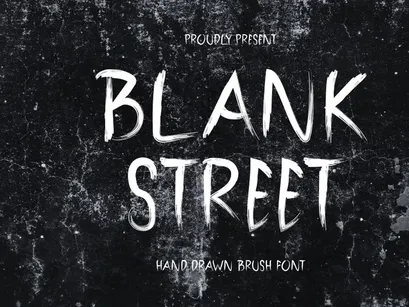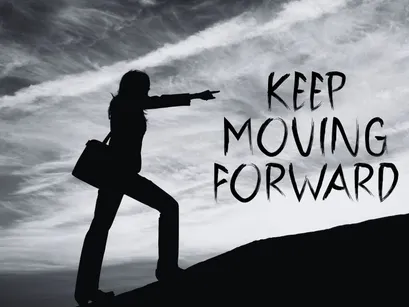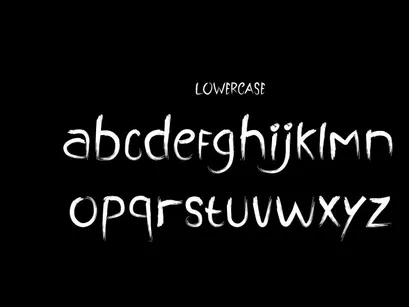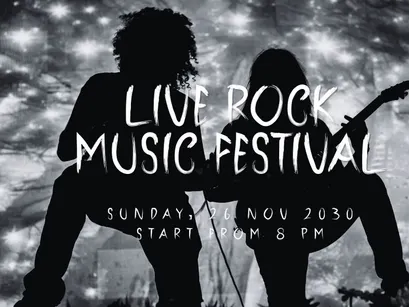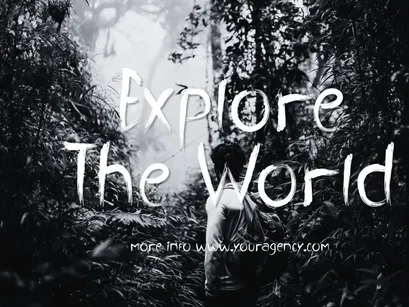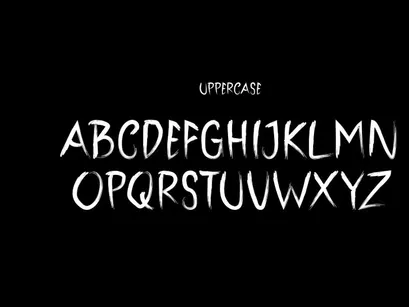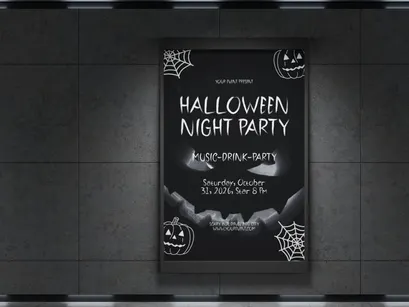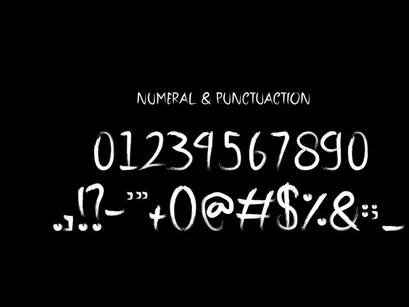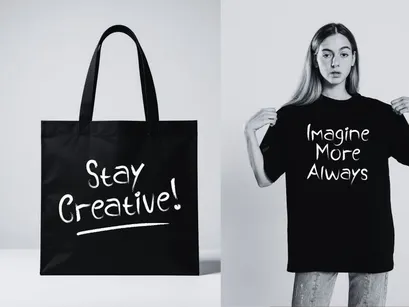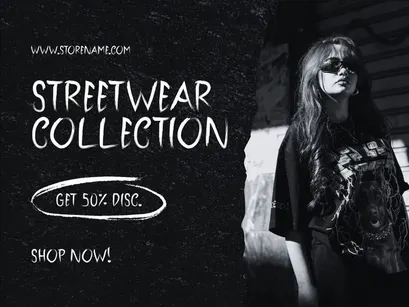
BLANK STREET - HAND DRAWN BRUSH FONT
A bold hand-painted brush font with a natural and expressive style. Perfect for logos, branding, posters, apparel, packaging, social media, merchandise, and creative projects that need an authentic handcrafted look.
Perfect For
• Logos & Branding
• Streetwear & Apparel Design
• Posters & Flyers
• Album & Book Covers
• Packaging Design
• Product Labels
• Social Media Graphics
• Advertising & Marketing
• Quotes & Typography
• Stickers & Merchandise
• Café & Restaurant Branding
• Creative DIY Projects